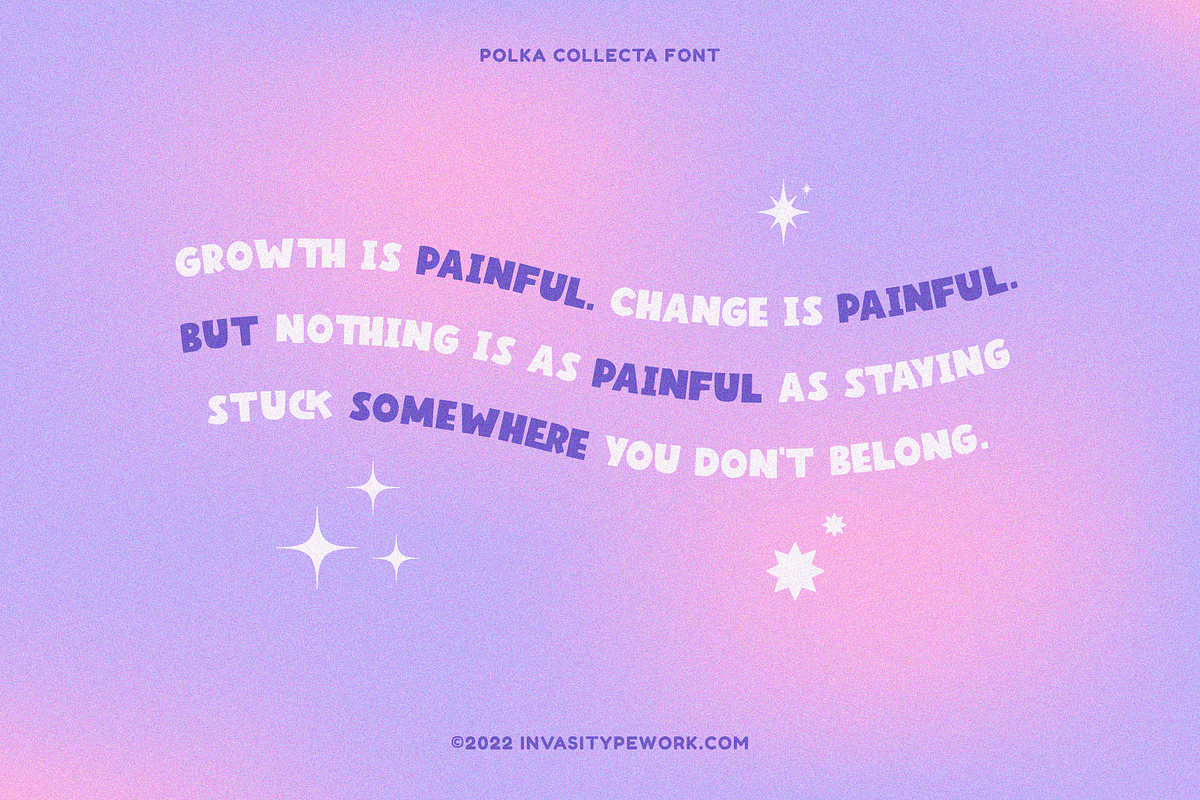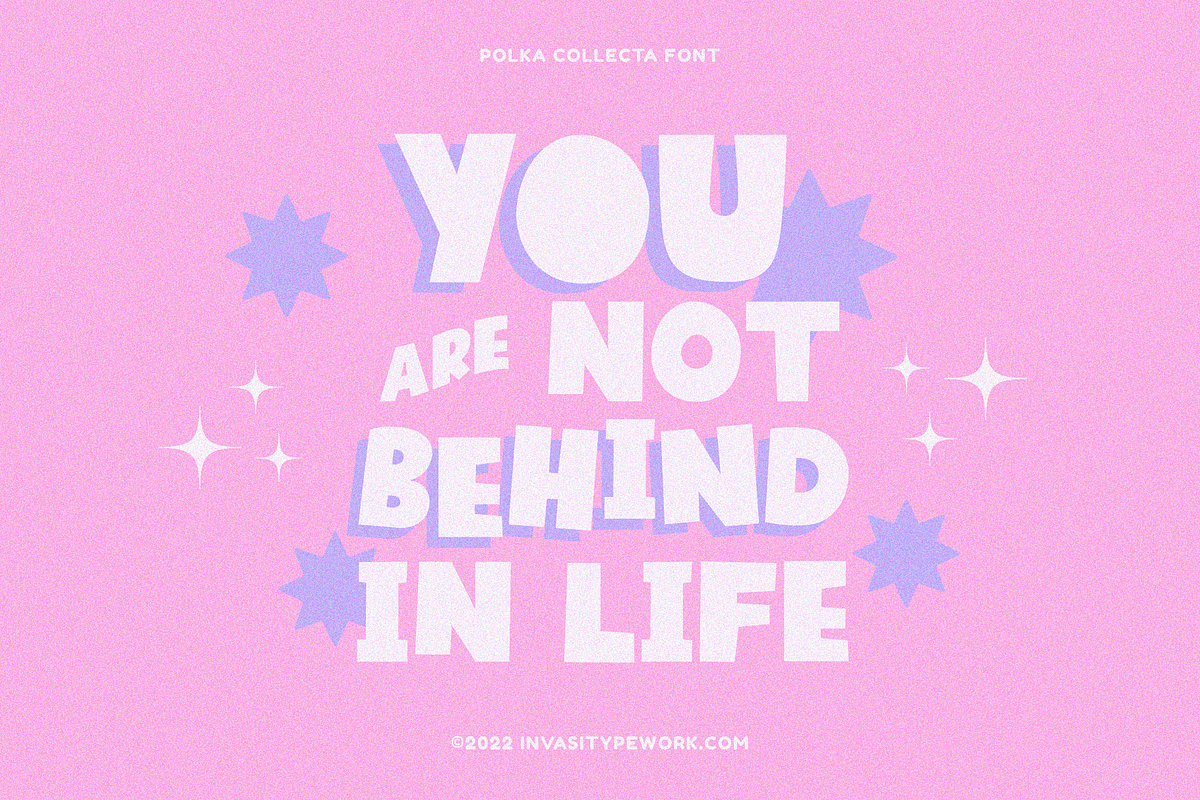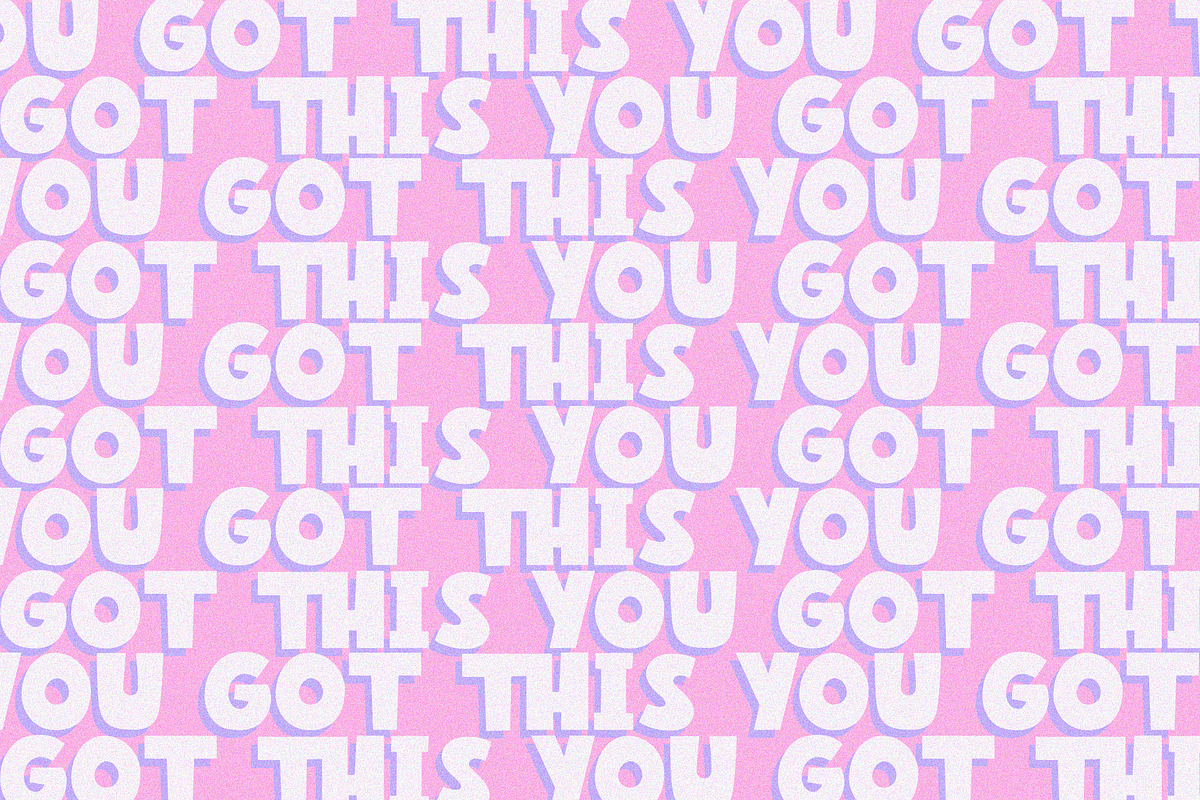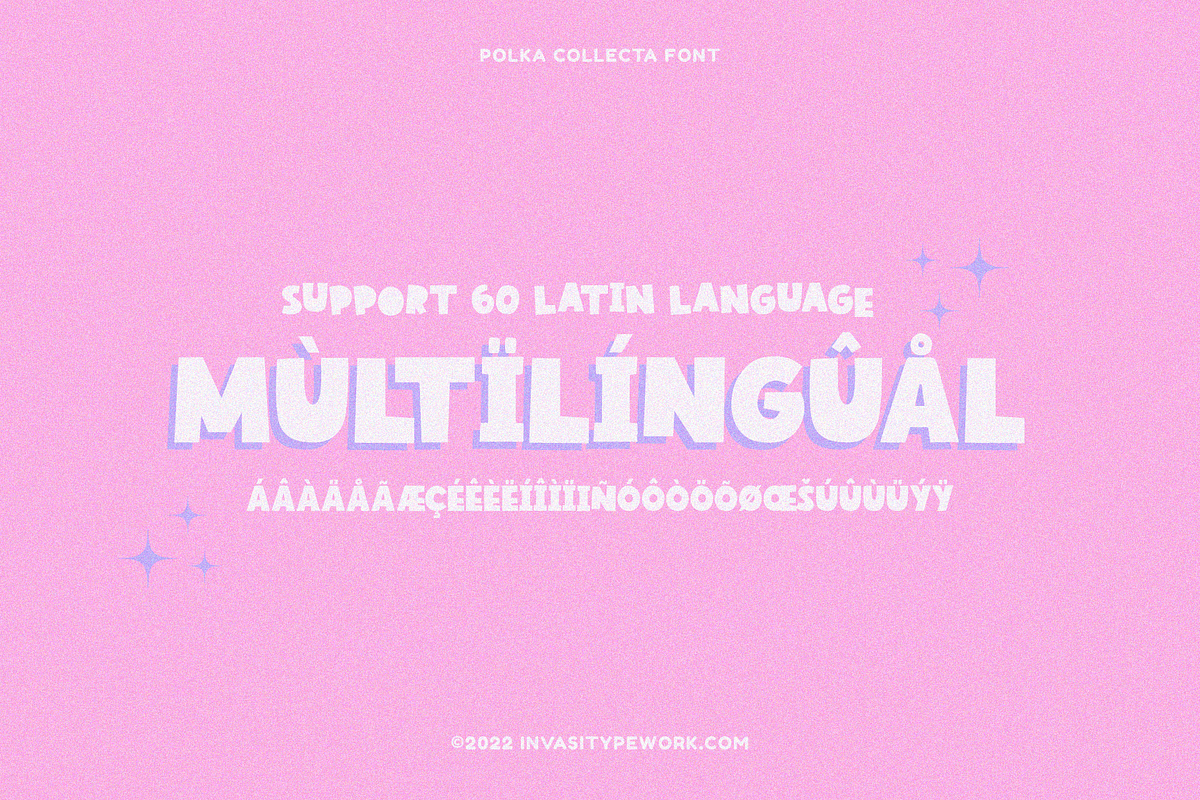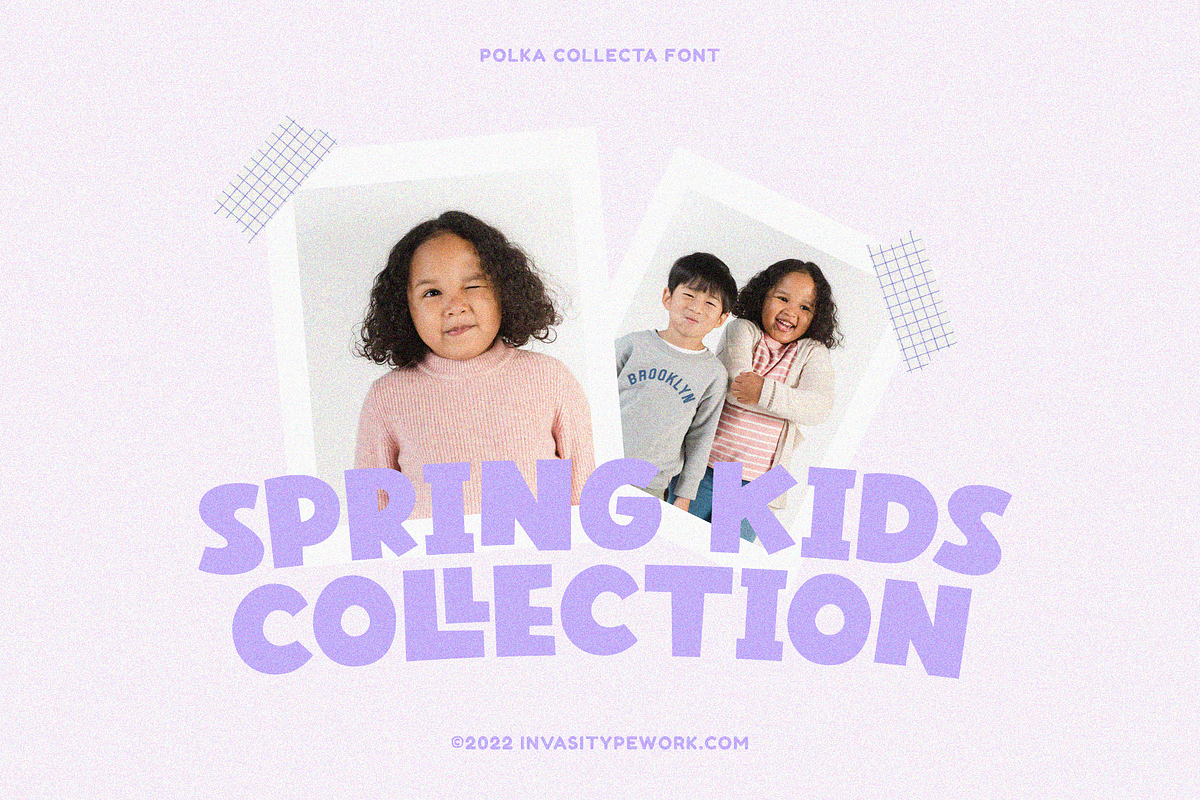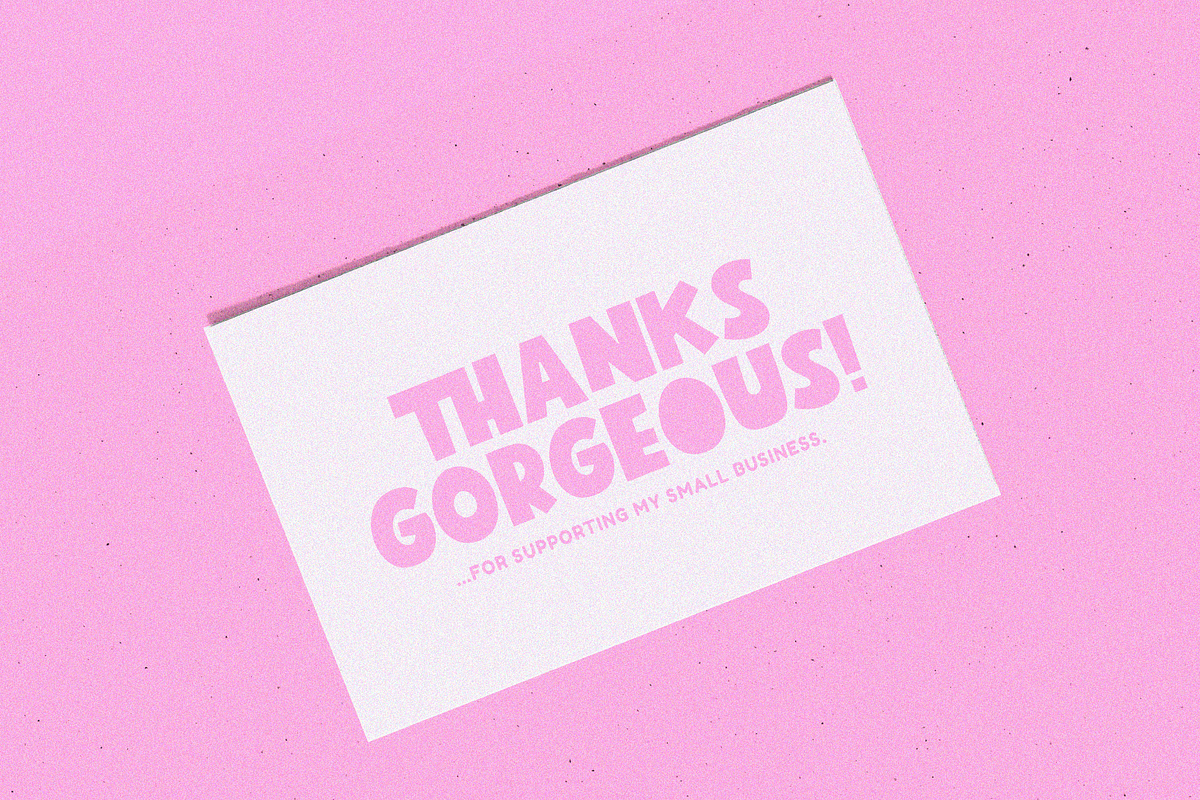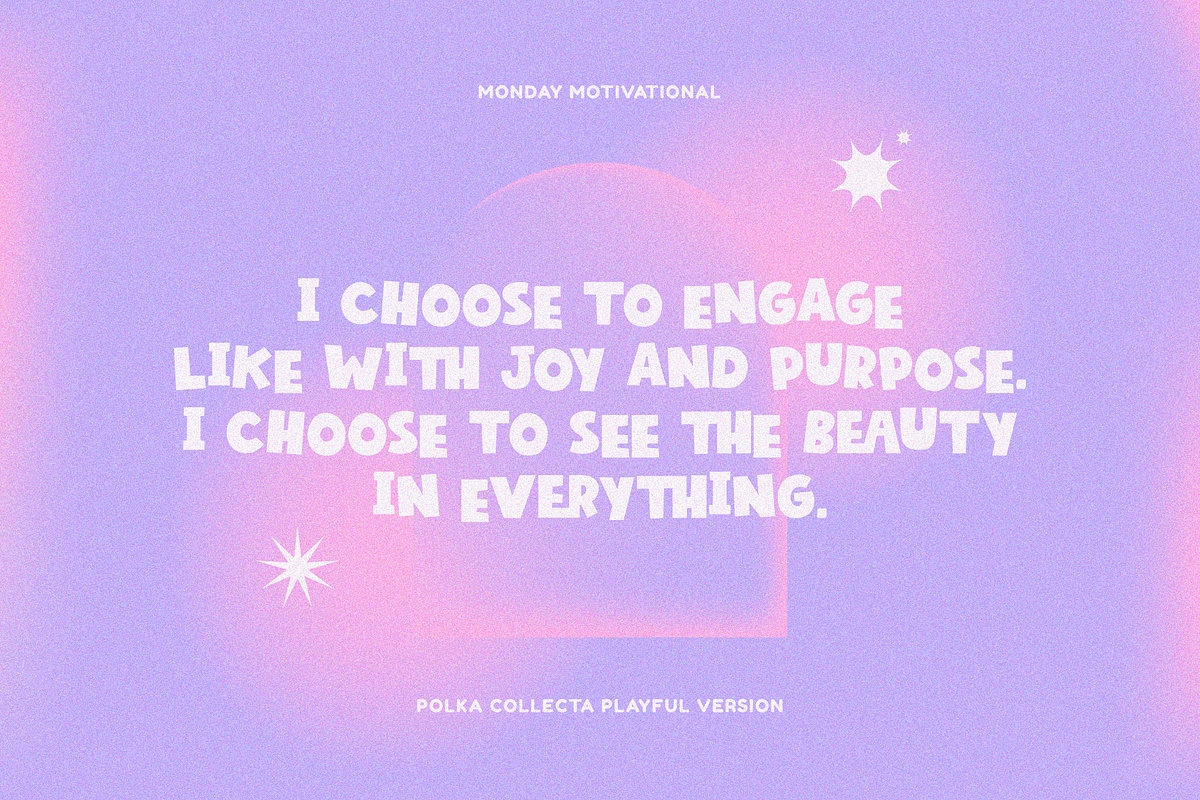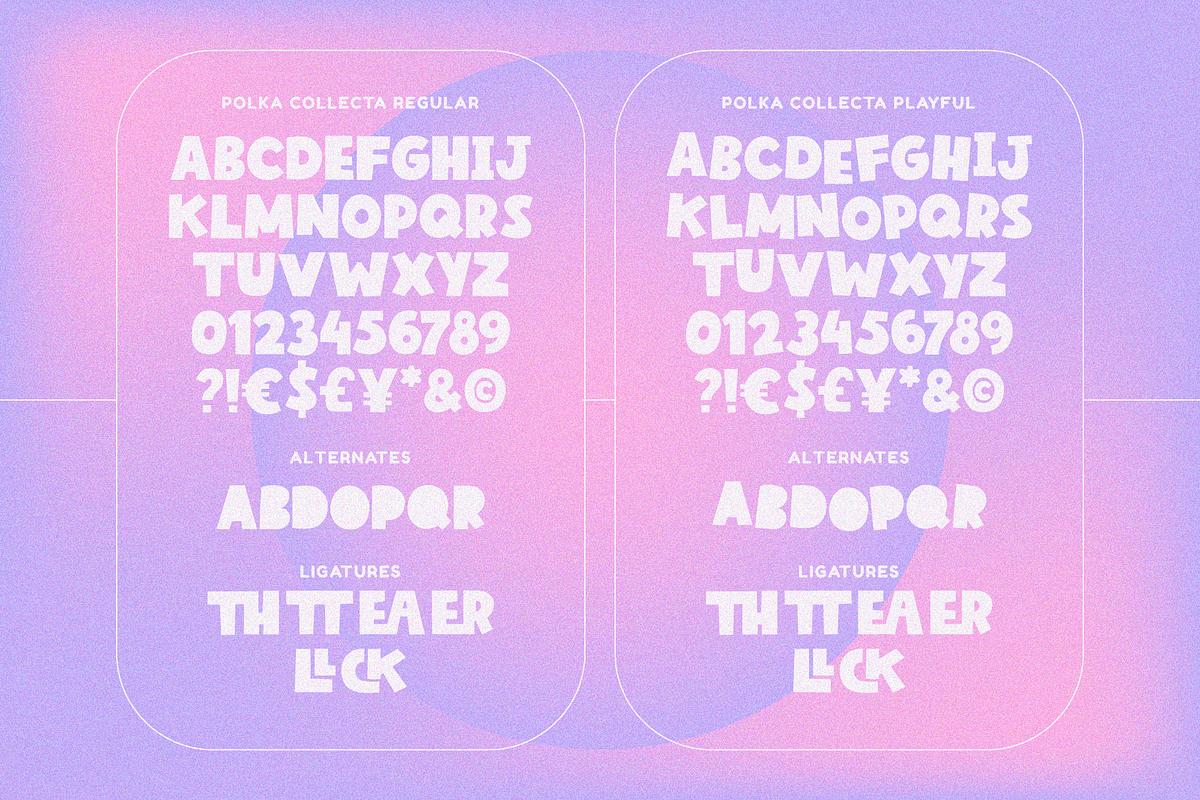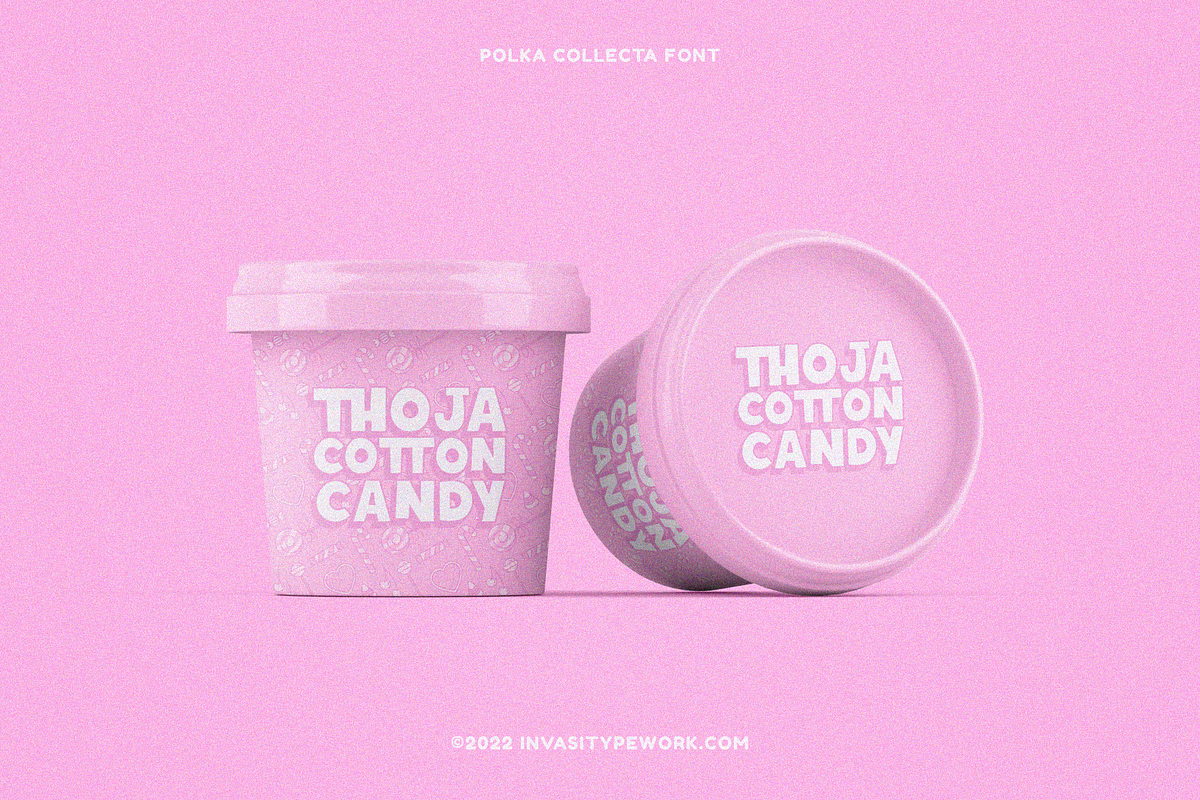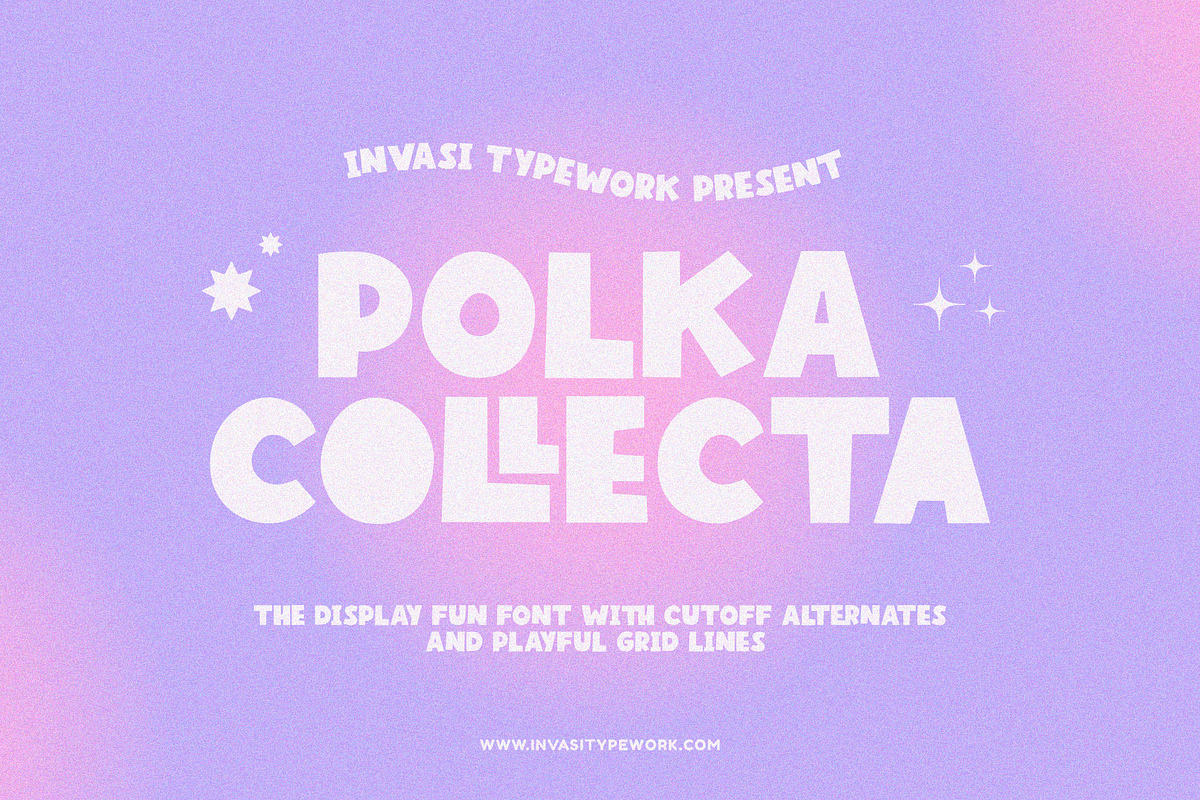
Polka Collecta - Bold Playful
Polka Collecta is a playful display font with alternate cuts. A bold and fun Sans Serif typeface, available in two styles: Regular and Playful. Using the playful version, you can create unique compositions because of the informal grid.
Opentype fonts feature stylistic alternate characters to give the composition a unique personality.
Suitable for display needs such as quotes, branding, logo, poster, cover design, etc
- Multilanguage Supports 60+ Latin based languages